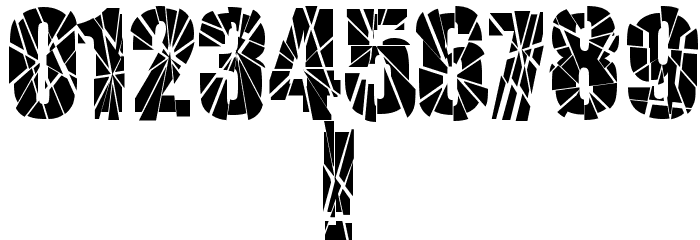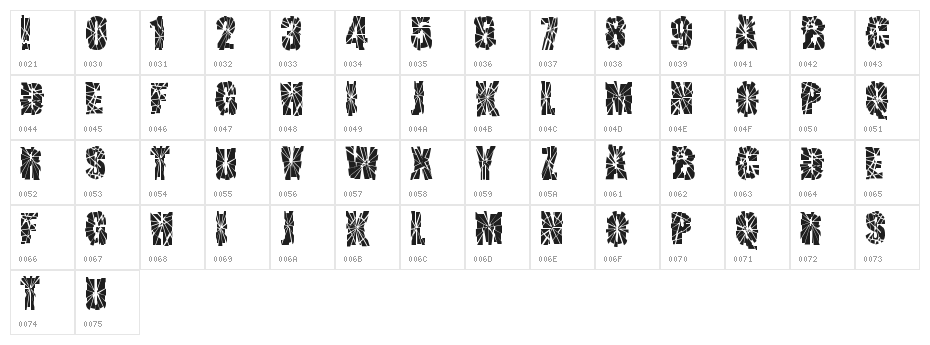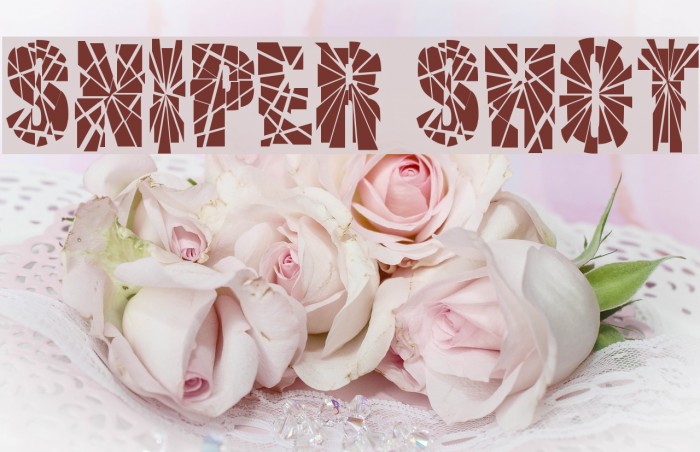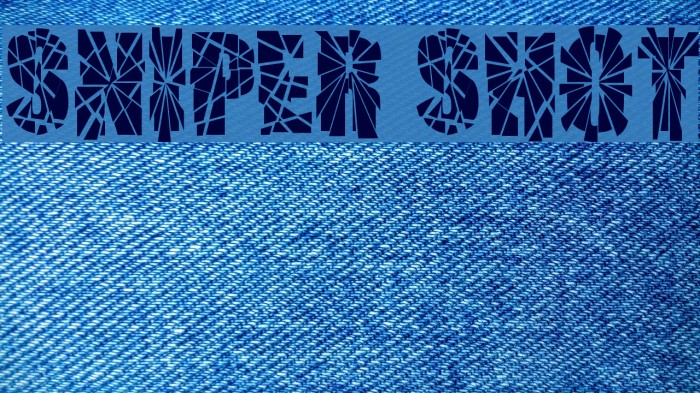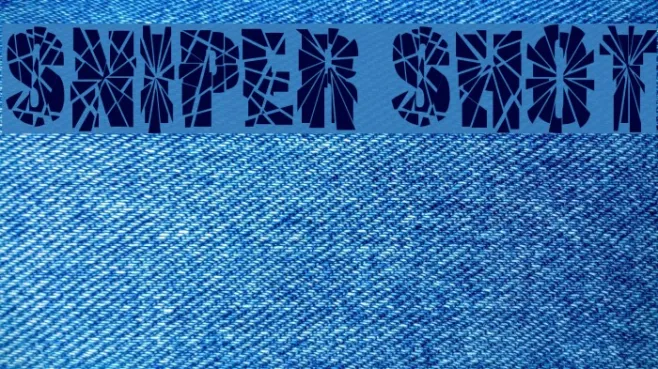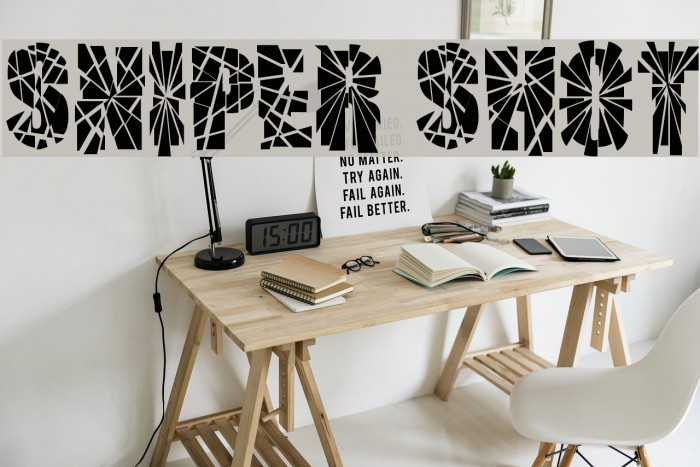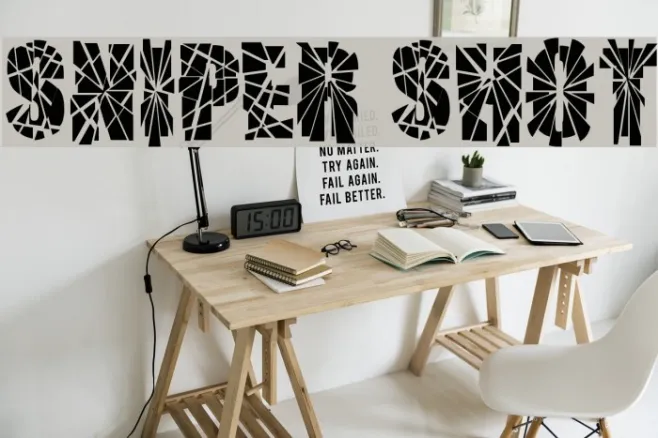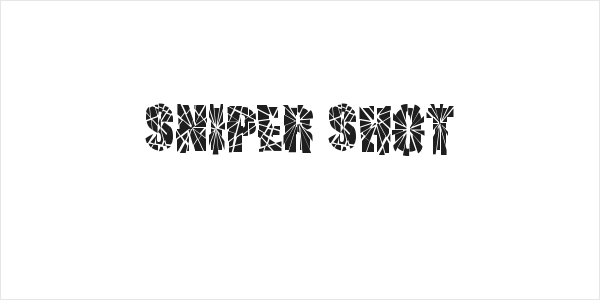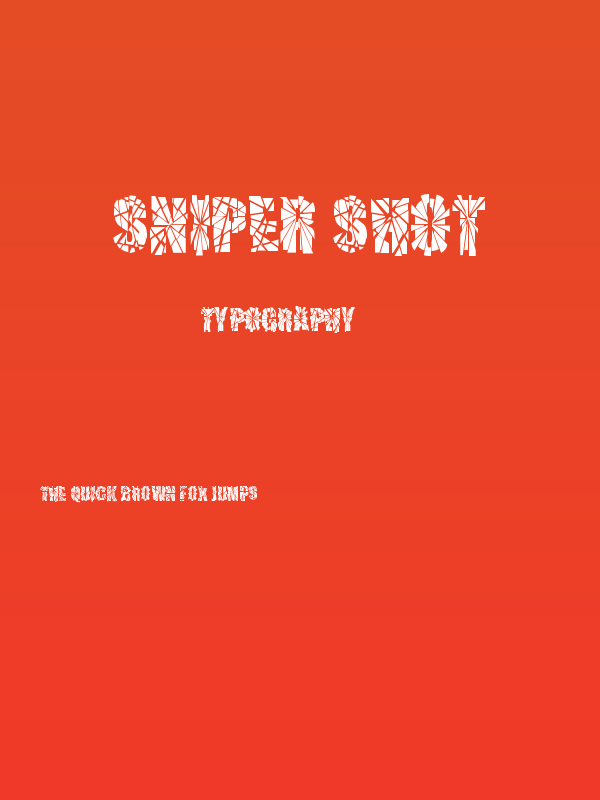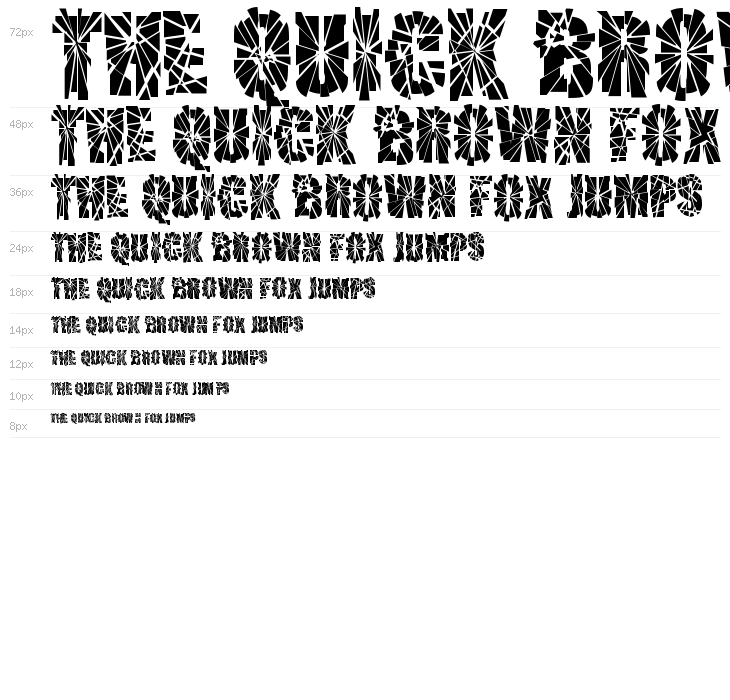
SNIPER SHOT Font
SNIPER SHOT Description
This font features a bold and striking design with a shattered glass effect. Each character is composed of fragmented pieces, creating a dynamic and edgy appearance. The style is highly decorative, making it ideal for attention-grabbing headlines or artistic projects. The uppercase and lowercase letters, along with numbers and special characters, maintain a consistent shattered motif, enhancing its unique visual impact. The font's boldness and fragmented style suggest themes of disruption and modernity, making it suitable for projects that aim to convey a sense of boldness and innovation.
| Overall Style | Modern, Edgy |
| Use Case | Headlines, Logos, Artistic Projects |
| Proposed Projects | Ideal for poster designs, album covers, video game graphics, and edgy branding projects. |